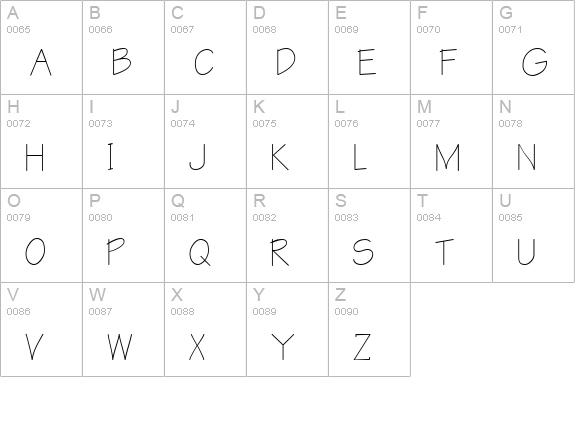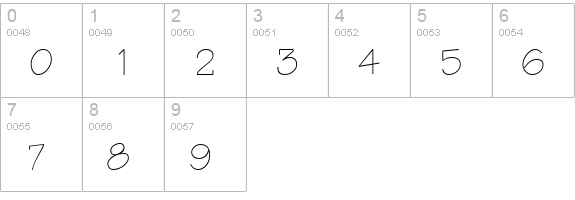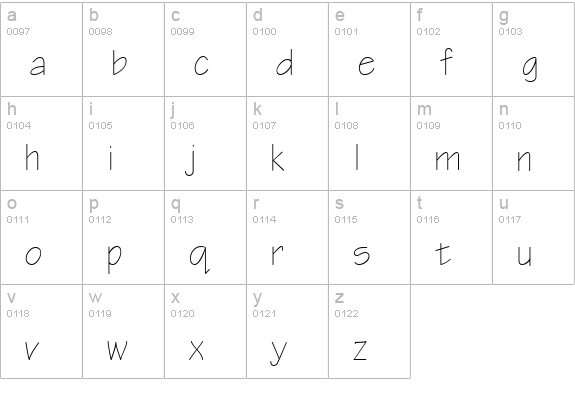
QTTechtone Regular Font Details
QTTechtone Regular is the standard, neutral variant in the QTTechtone typeface family \xE2\x80\x94 well suited to general body text, paragraphs, and standard typographic work.
QTTechtone Regular font is a modern and versatile typeface that is perfect for adding a touch of sophistication to your design projects. With its clean lines and smooth curves, this font is both elegant and readable, making it suitable for a wide range of applications. Whether you're designing a logo, creating a website, or crafting a stunning poster, QTTechtone Regular font will effortlessly elevate your design to the next level. Its sleek and contemporary look is sure to captivate your audience and leave a lasting impression. One of the best parts about QTTechtone Regular font is that it is absolutely free. That's right, you can download this amazing font for free at FontsMarket.com. This means that you can explore your creativity without any limitations or restrictions. Whether you're a professional designer or a hobbyist, you can now access this incredible font without breaking the bank. QTTechtone Regular font is not only visually appealing, but it is also highly functional. With a wide range of available weights and styles, you have the flexibility to choose the perfect variant for your specific design needs. Whether you prefer a bold and impactful statement or a more subtle and understated look, QTTechtone Regular font has got you covered. In addition to its aesthetic appeal, QTTechtone Regular font also boasts excellent legibility. Its carefully designed letterforms ensure that your text is easy to read, even at smaller sizes. This makes it an ideal choice for body text, headlines, captions, and more. So why wait? Experience the beauty and versatility of QTTechtone Regular font today. Download it for free at FontsMarket.com and explore the endless possibilities it offers. Let your imagination run wild and create stunning designs that will leave a lasting impression. QTTechtone Regular font is here to elevate your design game, and it's just a click away.